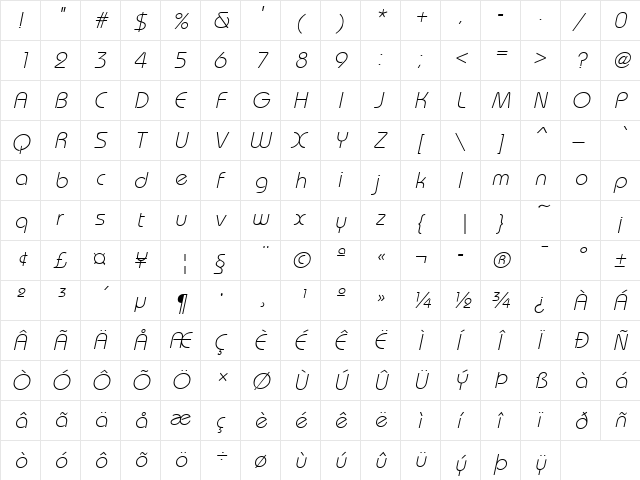
BauhausLH Italic
Design Context for BauhausLH Typeface
BauhausLH is a composed and adaptable typeface that performs quietly and consistently across a wide range of design contexts. Its italic angle brings a sense of urgency and motion to the letterforms.
Pro Tip: Use BauhausLH for emphasis, pull quotes, and subheadings where its slanted energy can add rhythm to the layout.